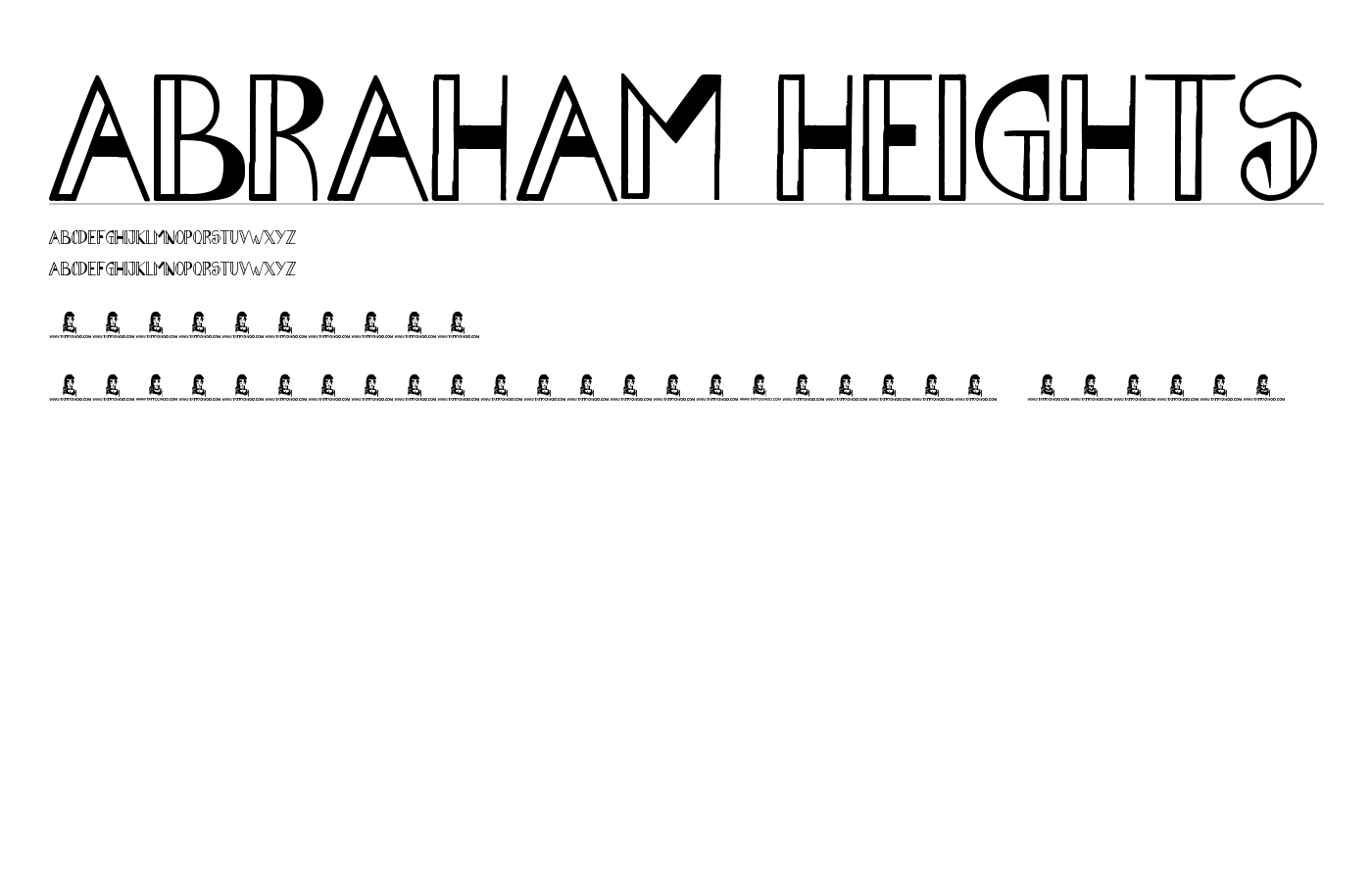
Abraham Heights is a stylish, condensed sans serif font with a distinctive Art Deco flair, featuring elegant tall letterforms and thin, consistent strokes with minimal contrast. Its geometric shapes and unique details, like the angled legs and creative terminals, give it a vintage yet modern feel, making it perfect for sophisticated branding, headlines, and decorative design projects. This font works especially well where a touch of luxury and personality is desired, such as fashion, packaging, and editorial use.
Abraham Heights Font
About Abraham Heights Font